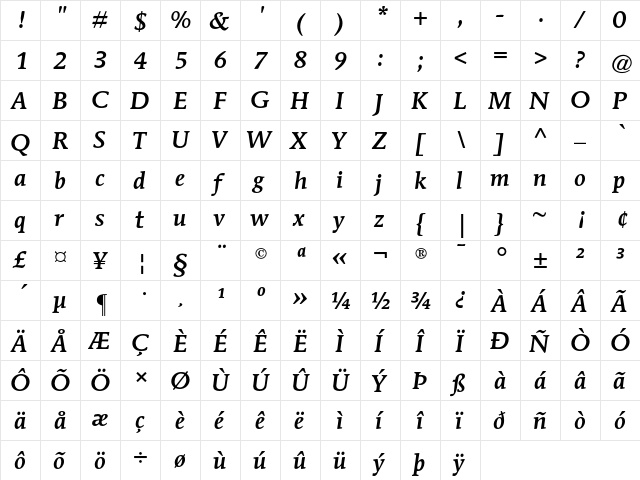
Mendoza Roman AT Medium Italic
Design Context for Mendoza Roman AT Medium Typeface
Mendoza Roman AT Medium takes a measured approach to typography — its balanced proportions and neutral character make it a reliable workhorse for both digital and print work. The slanted form adds forward momentum and visual energy.
Pro Tip: Try Mendoza Roman AT Medium for annotation and caption copy alongside an upright companion — the contrast in angle creates a dynamic but ordered typographic system.